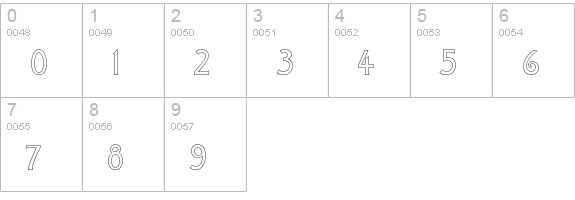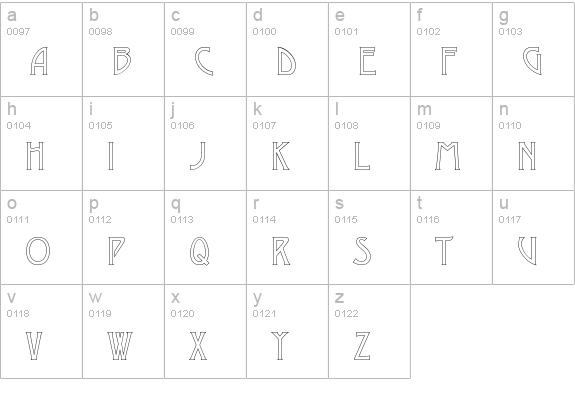
Dustine Regular Font Details
Dustine Regular is the standard, neutral variant in the Dustine typeface family \xE2\x80\x94 well suited to general body text, paragraphs, and standard typographic work.
Dustine Regular is a modern and elegant font that exudes sophistication and versatility. With its clean lines and stylish curves, this typeface is perfect for a wide range of design projects, from branding to editorial design. The free-flowing nature of Dustine Regular adds a touch of creativity and personality to any text, making it stand out from the crowd. This font is freely available to download at FontsMarket.com, where you can access a wide selection of high-quality fonts for your creative projects. Whether you're designing a logo, creating a poster, or crafting a website, Dustine Regular is sure to elevate your work with its unique charm and timeless appeal. Let Dustine Regular be the perfect addition to your font collection and bring your designs to life with its effortless style and grace.